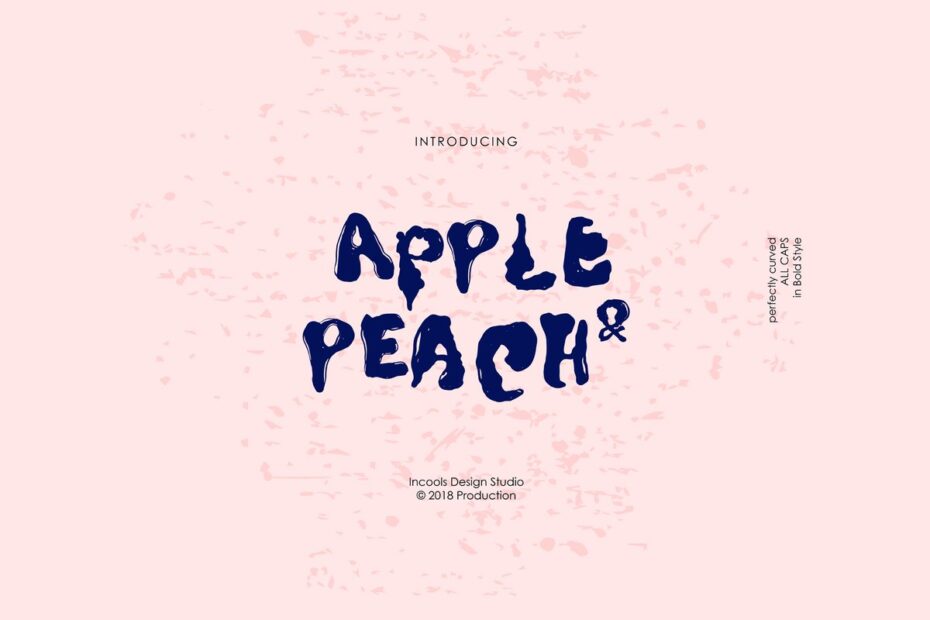
The Sweet Taste of Typography: Introducing Apple & Peach Font
Who among us hasn’t had a eureka moment while brainstorming ideas? For designers, those moments are a dime a dozen, but sometimes it’s the smallest spark that sets off a creative explosion. That’s exactly what happened when our team stumbled upon the Apple & Peach Font – a bold, playful display font that’s as vibrant as a summer day.
With its unique style and flair, the Apple & Peach Font is the perfect addition to any designer’s toolkit. Whether you’re working on a logo, poster, or social media campaign, this font is sure to bring a smile to your clients’ faces. Its versatility and ease of use make it a valuable asset for designers of all levels, and its modern aesthetic ensures it will stay relevant for years to come.
Apple & Peach Font Key Features
- Unique Characteristics: This font features a unique blend of modern and vintage elements, with distinctive letterforms, swashes, and flourishes that evoke a sense of warmth and nostalgia.
- Kerning and Ligatures: The font includes advanced kerning and ligature pairs, ensuring smooth text flow and optimal readability, even in complex layouts.
Apple & Peach Font Review
At first glance, the Apple & Peach font appears to be a charming and playful choice for various design projects. Here are a few things that work well: ✨
- Unique character set: The font features a distinct set of characters that add a whimsical touch to text.
- Legibility: Apple & Peach is surprisingly readable, especially at smaller font sizes.
- Customizability: The font offers various styles and weights, allowing designers to experiment with different looks.
- Limited language support: Apple & Peach may not be optimized for languages that require complex scripts or character sets.
- Not ideal for body text: While the font is readable, it may not be the best choice for large blocks of text due to its playful nature.
- No bold or italic versions: The font’s bold and italic styles are somewhat inconsistent, which may affect overall design cohesion.
Overall, Apple & Peach is a fun and creative font that can add a touch of personality to designs. However, its limitations should be carefully considered before using it for critical or high-volume text applications.
Use the Apple & Peach font in conjunction with other playful fonts to create a whimsical design.
Pair the font with bright, pastel colors to add a touch of nostalgia.
Use the font for titles, headings, or short paragraphs to create visual interest.
The Apple & Peach font is ideal for:
Food-related designs (e.g., restaurant menus, food blogs).
Children’s products (e.g., toys, educational materials).
Summer-themed designs (e.g., beach invitations, pool party decorations).